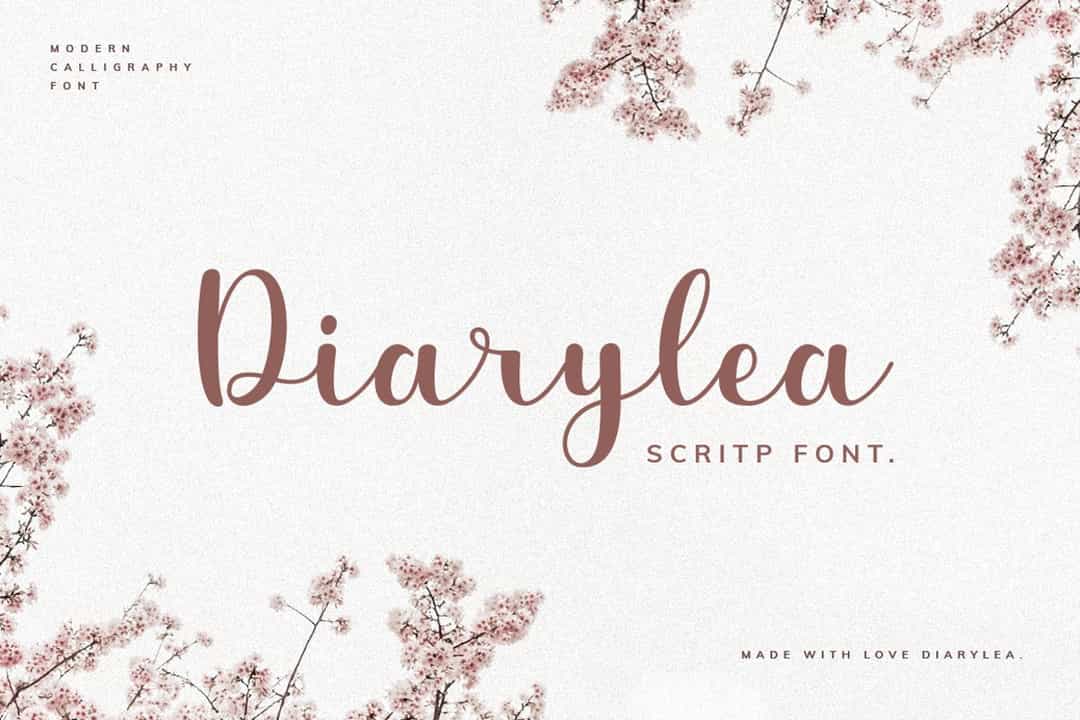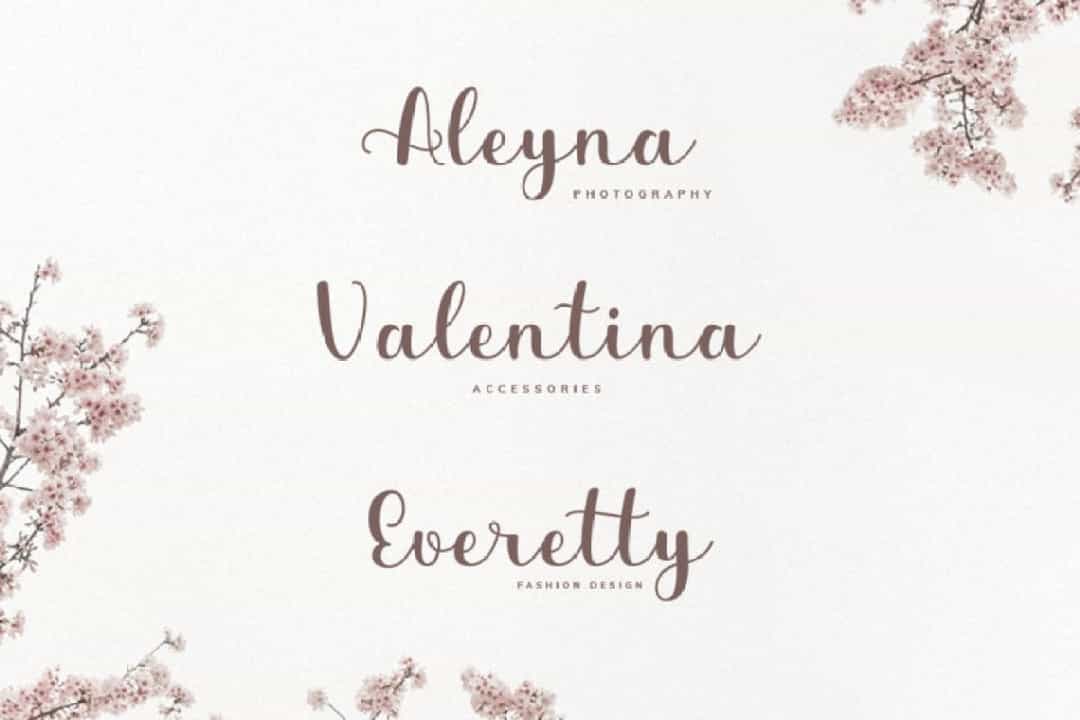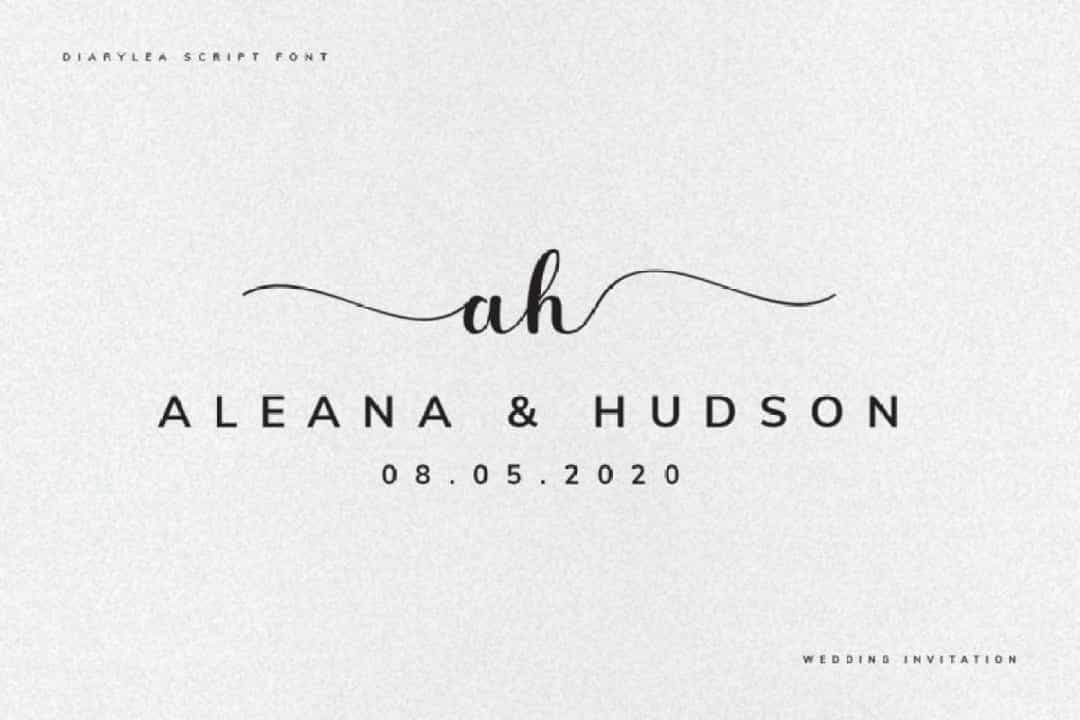
Meet the new kid on the block the Diarylea Script Font!. This is a script font that has naturalistic stroke and feminine charm and friendliness that will make it ideal for fashion brands, on line shopping sites, trend blogs or any business that would wish to portray a casual elegance.